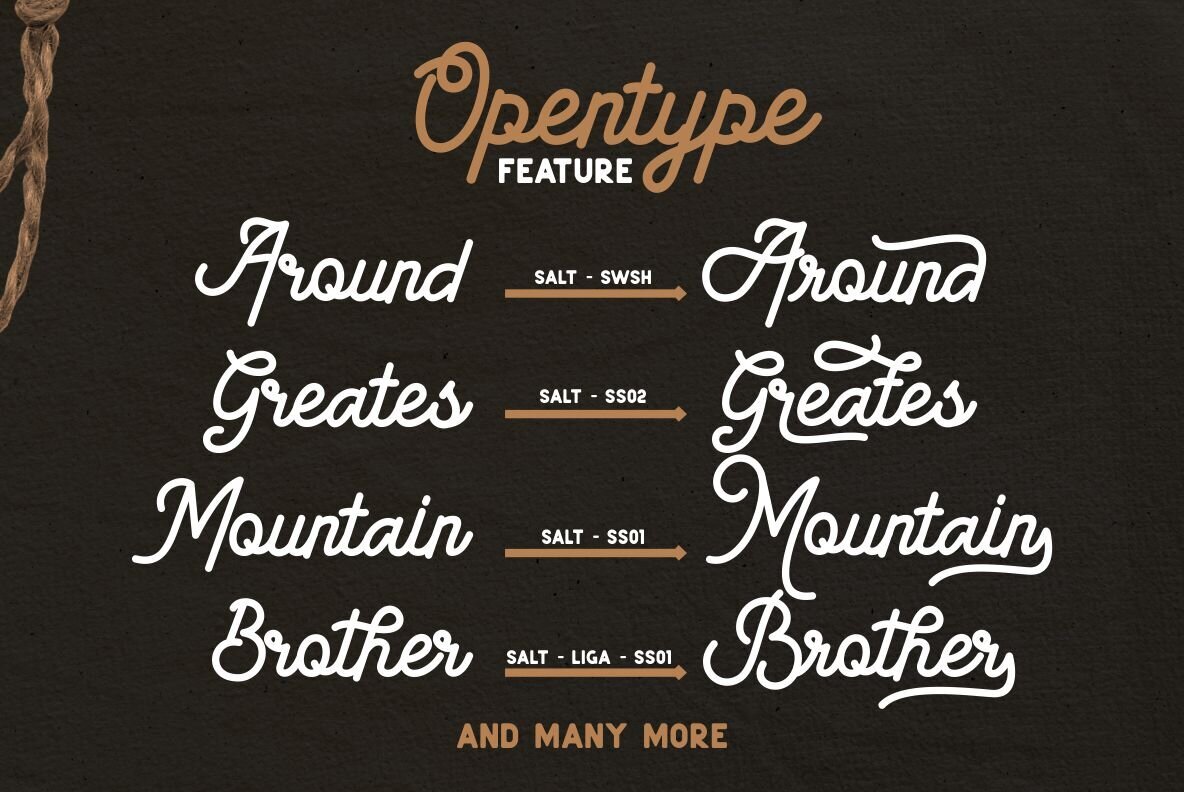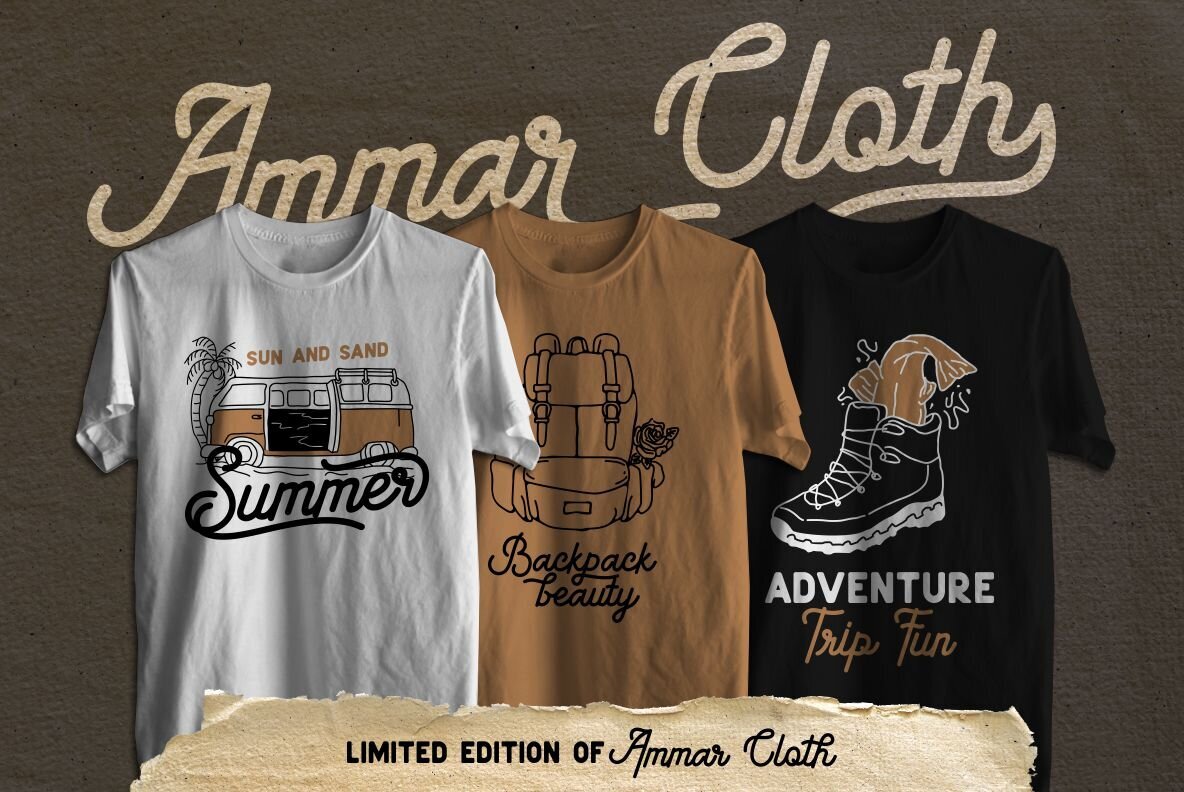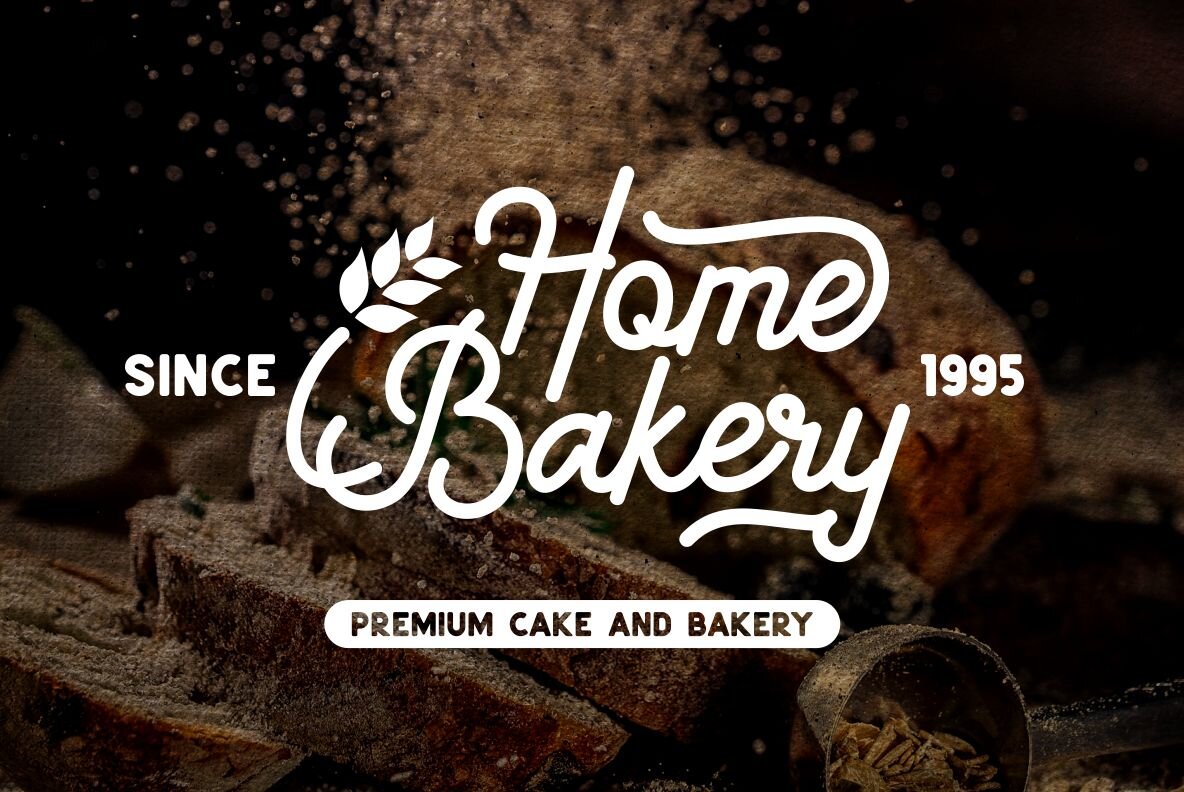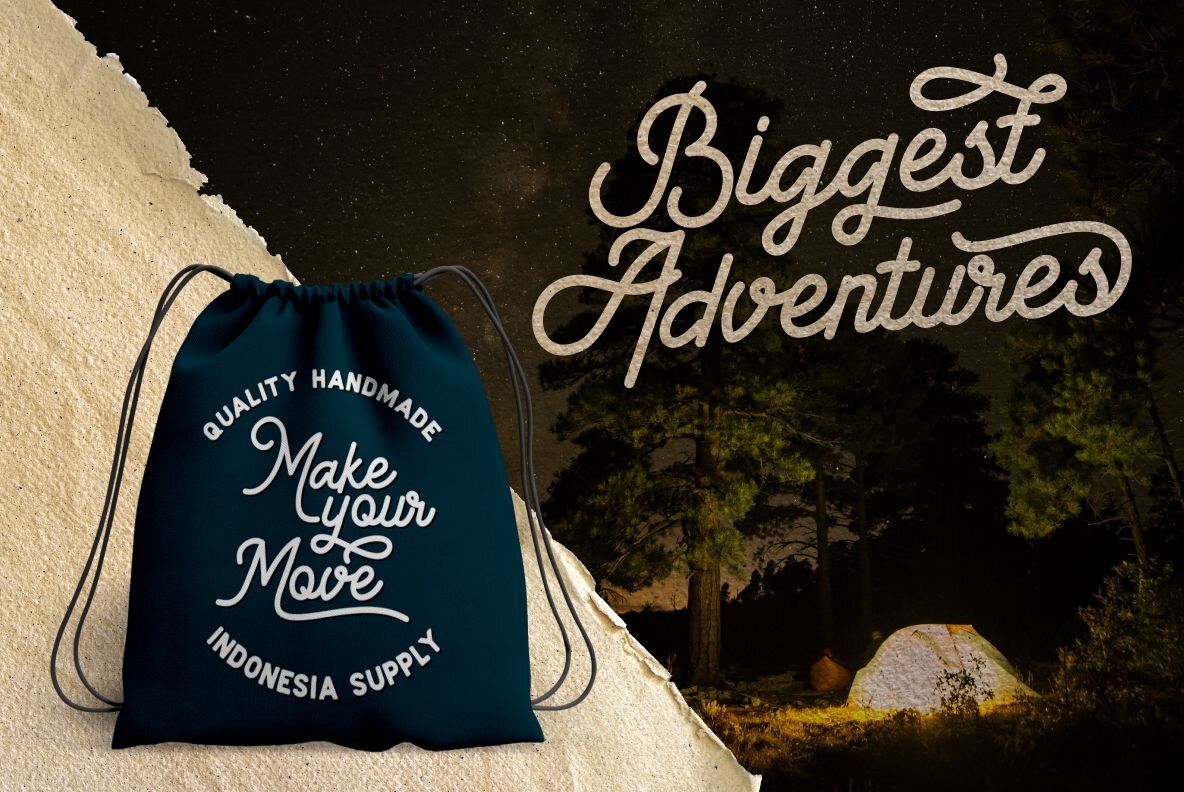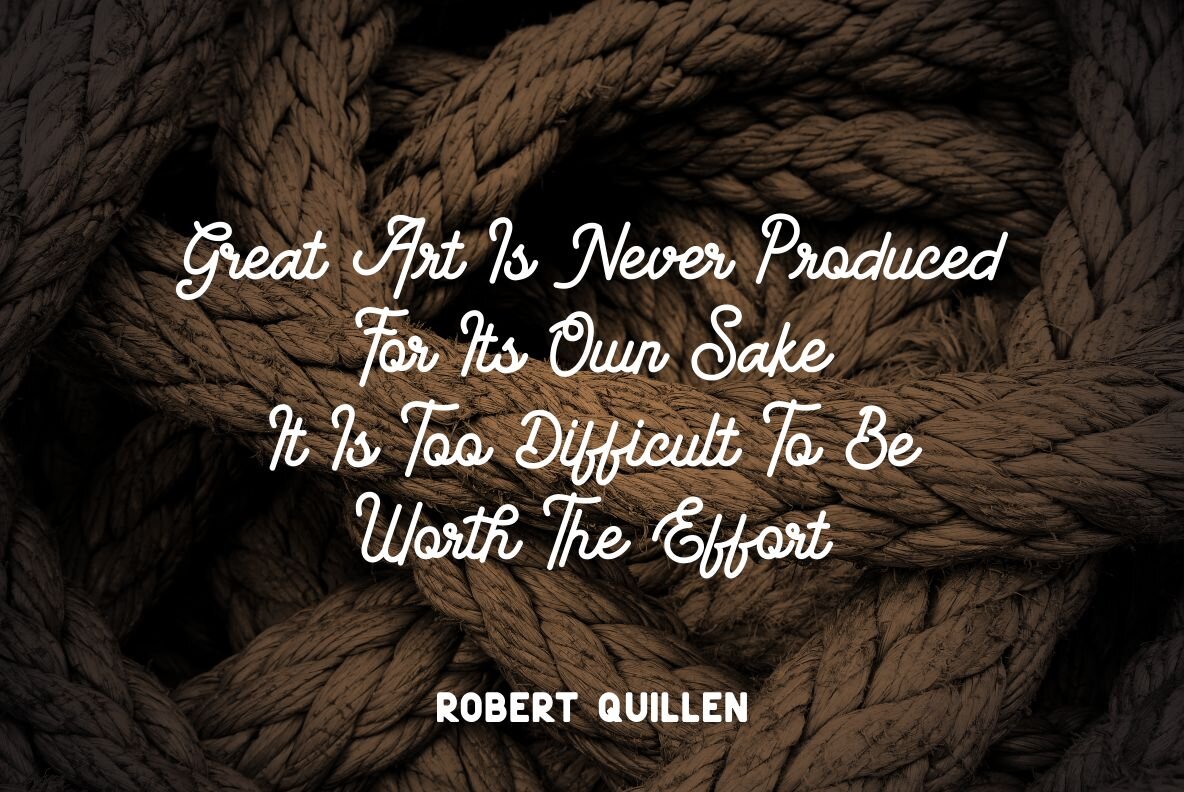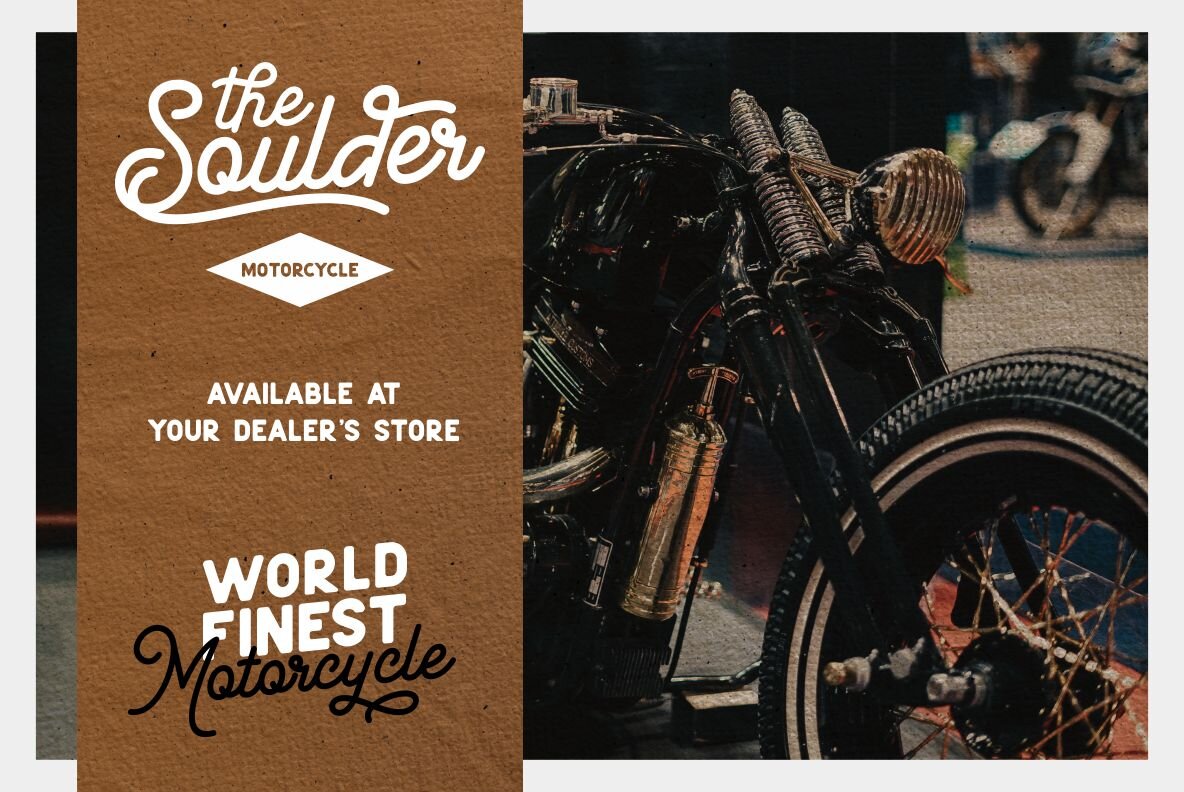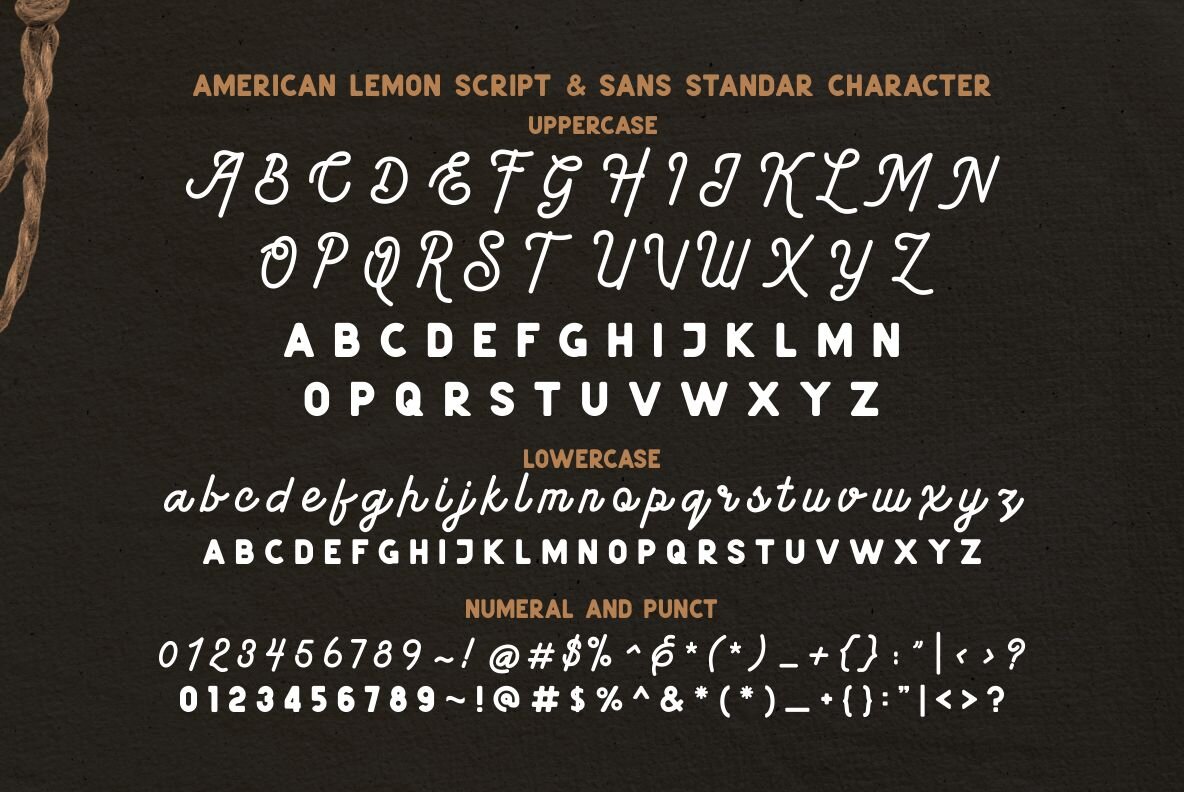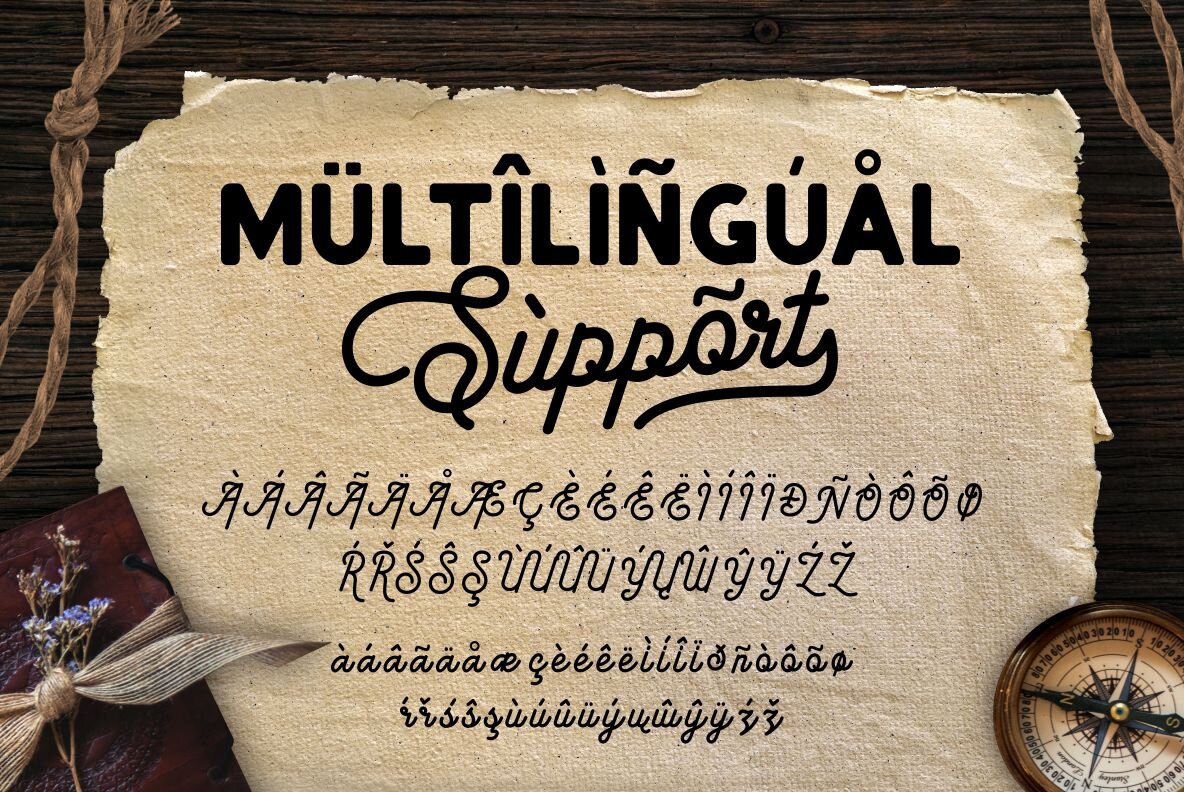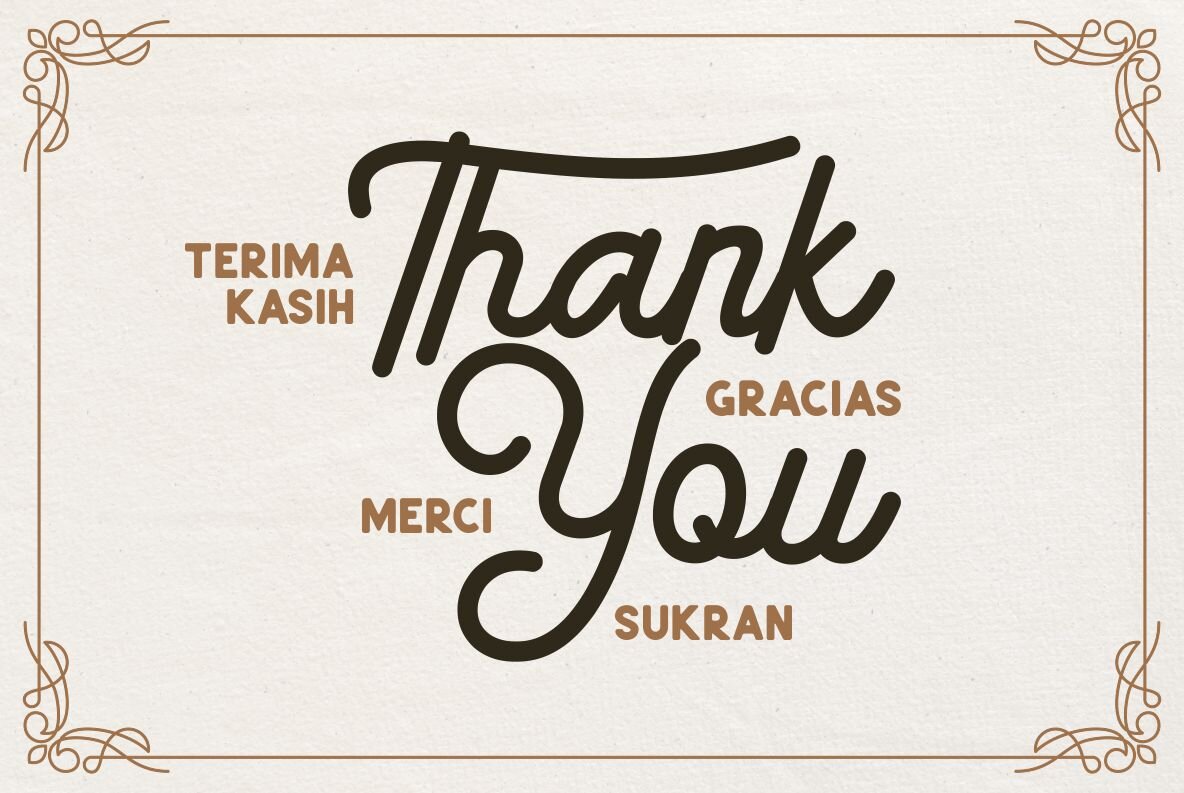
American Lemon Font
American Lemon
American Lemon Sans
American Lemon combines both script and sans serif styles to create a harmonious font duo. Ideal for logotypes, apparel, branding, packaging, and advertising, this typeface offers versatility with its comprehensive character set, including uppercase, lowercase, punctuation, symbols, numerals, stylistic alternates, ligatures, and ending swashes. Delivering both form and function, the ending swashes are available in various lengths to complement your designs with ease. Accessing stylistic features in American Lemon is straightforward, enhancing the creative possibilities for your projects.American Lemon: Monoline Font Duo